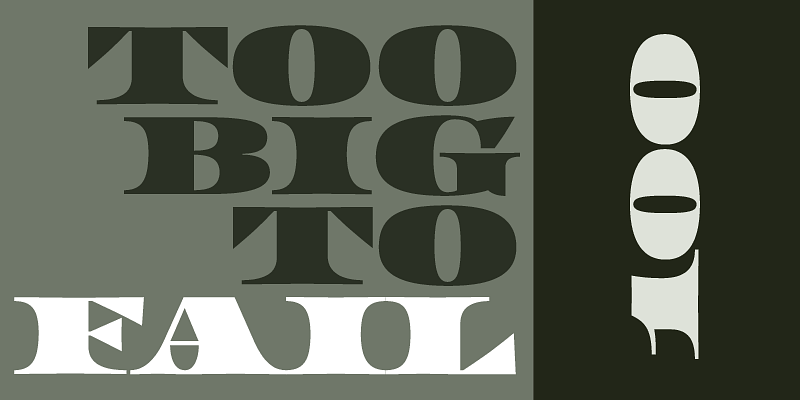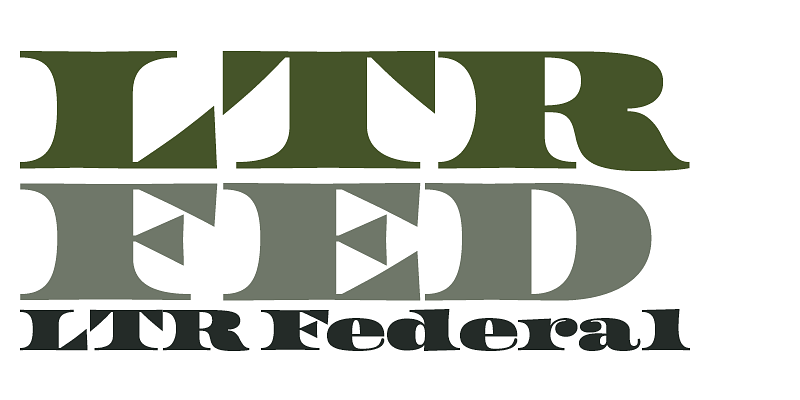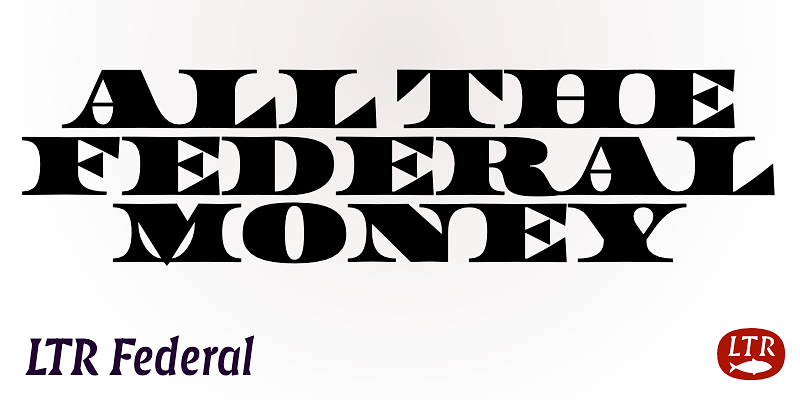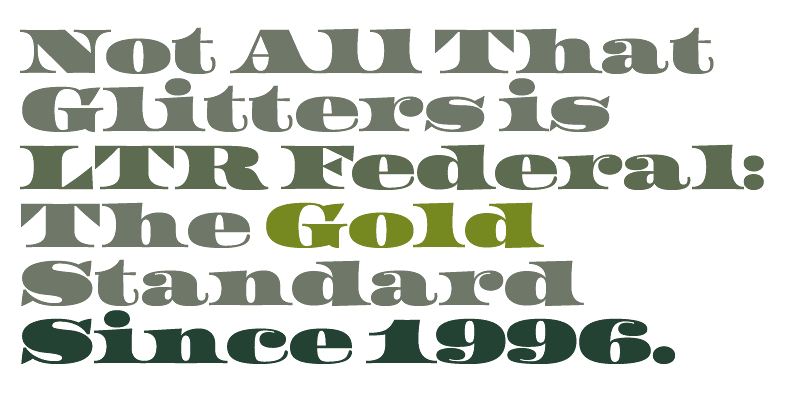
Instantly recognizable as the voice of a nation, Federal Regular is an amalgam of massive triangular serifs and curvaceous counters. An asset to all documentation whether analog or digital, the high-contrast letters are a proclamation of fiduciary responsibility. In type we trust.